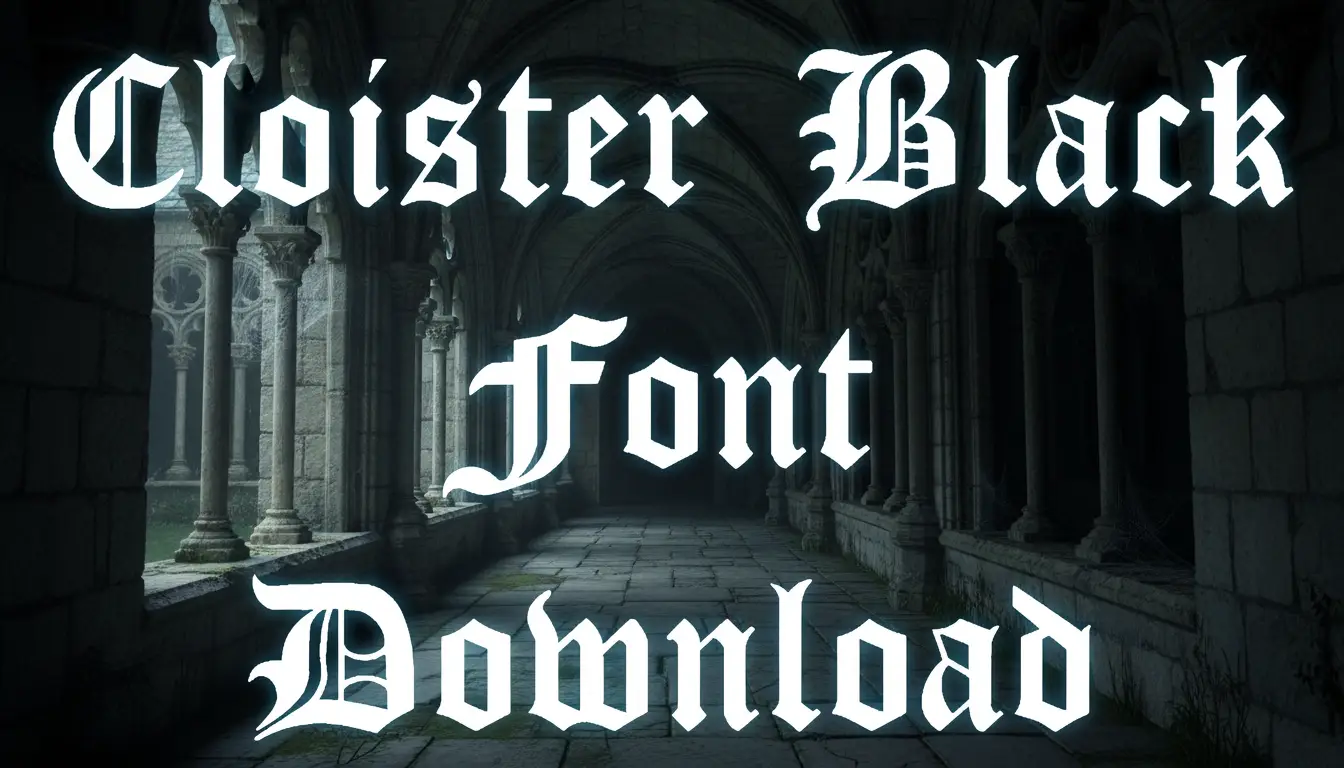
Cloister Black Font
Cloister Black is a gothic font. Sharp, dark and dramatic, it follows the blackletter tradition of old European manuscripts. It's a free download, and you can try it with your own text in the preview above first.
What You Can Type With Cloister Black
Cloister Black covers the full alphabet in upper and lowercase, plus all ten numbers, so you can set names, dates and prices without switching fonts. Common punctuation such as &, !, ? and @ is included as well. It also has the accented letters you need for Spanish, French, German, Portuguese and Italian.
Where Cloister Black Works Best
Cloister Black is a natural fit for tattoos, metal band logos and dark fantasy titles. Blackletter is very hard to read in all caps, so type in normal upper and lowercase.
Does Cloister Black support accented letters?
Yes. Cloister Black includes the accented letters needed for Spanish, French, German, Portuguese and Italian, so it works for more than just English.